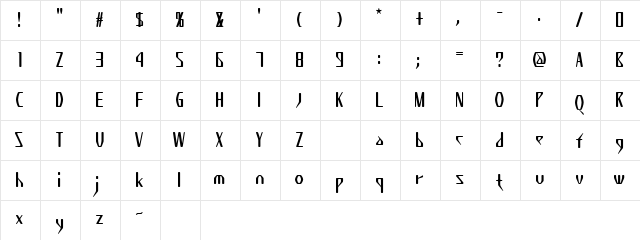
KZ WEDNESDAY ALP
Design Context for KZ WEDNESDAY Typeface
KZ WEDNESDAY is a composed and adaptable typeface that performs quietly and consistently across a wide range of design contexts.